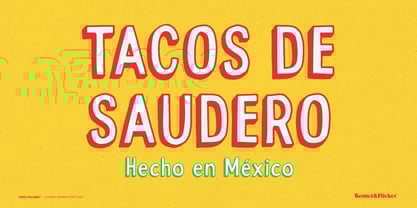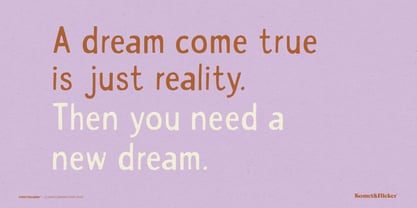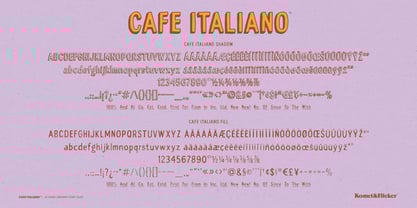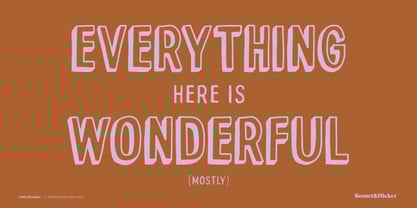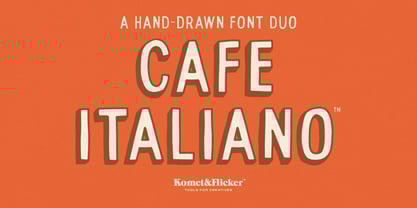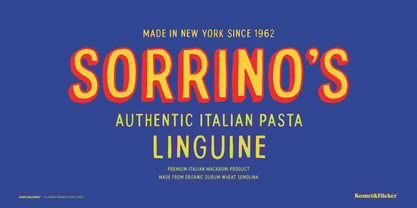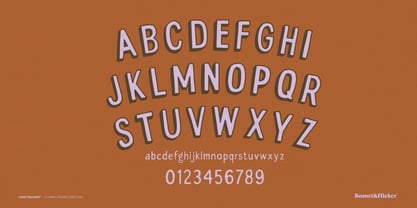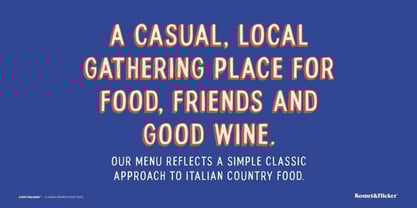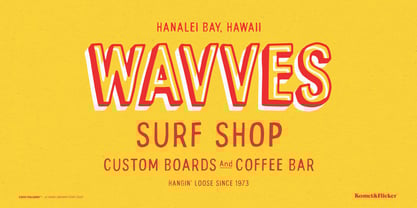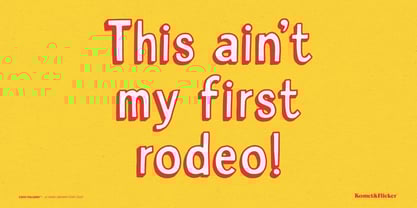
Cafe Italiano
Say ciao to Cafe Italiano, a casual hand-drawn font duo that brings playful charm to any design. This font comes in two versatile styles: Shadow and Fill. The Shadow version is bold and dimensional – perfect for making a statement with a hint of vintage flair. The Fill version perfectly overlays on the Shadow version for color filled type. It also works beautifully on its own for a loose and approachable style. In addition, this font comes with a set of 20 custom connecting words (like AND, THE, WITH) designed to integrate with the rest of your text for added flair. Cafe Italiano serves up that perfect blend of warmth, whimsy, and handwritten charm. Mangia!
THIS FONT COMES IN TWO STYLES
• Cafe Italiano Shadow
• Cafe Italiano Fill
THIS FONT INCLUDES
• Full A-Z uppercase and lowercase basic latin characters
• Select European specific characters
• Numbers, punctuation, and select symbols
• Pre-made common fractions
• Set of 20 custom connecting word glyphs